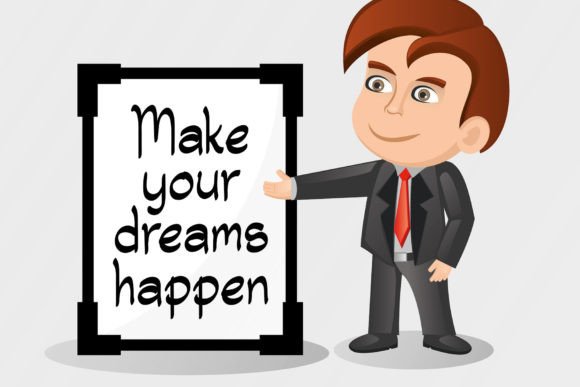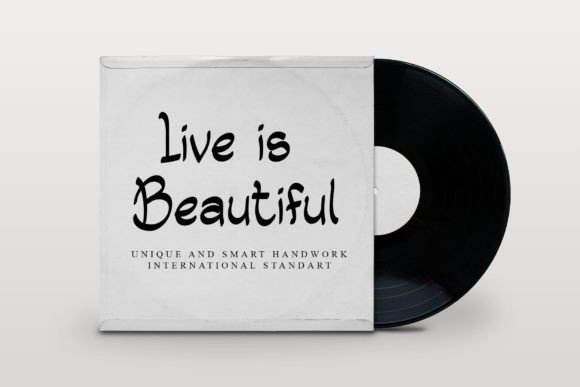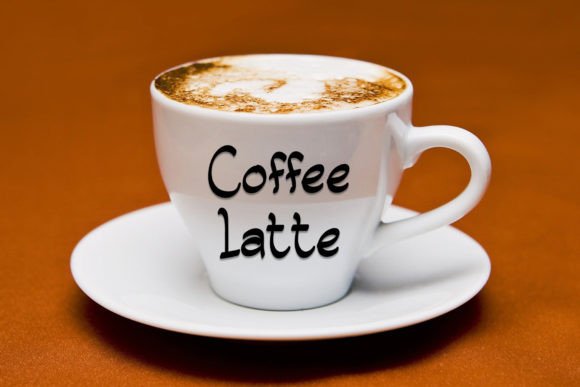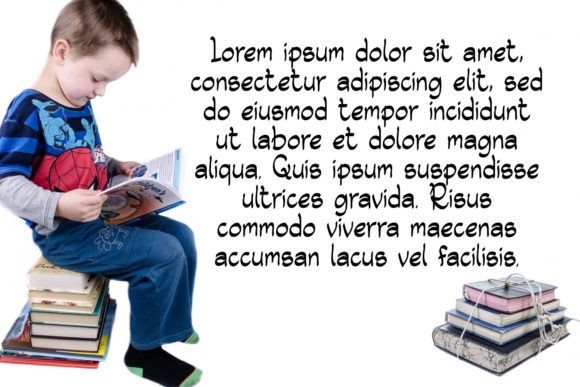
Jungle: A Handcrafted Script Font with Natural Elegance
Are you searching for a typeface that captures the beauty of handwritten text with an authentic, handcrafted flair? Meet Jungle – a stunning handcrafted script font designed to bring elegance, personality, and realism to your creative projects. Whether you’re designing for personal events or professional branding, Jungle offers a fresh and organic touch to every word.
This font was built to give your ideas a natural voice, filled with character and charm.
Elegant Handwriting with a Creative Edge
Jungle was carefully handcrafted to emulate real handwriting. The strokes are smooth yet slightly irregular, mimicking the flow of human expression. As a handcrafted script font, it offers both elegance and creativity, making it incredibly versatile for a range of design contexts.
Use Jungle for:
Wedding invitations and event stationery
Birthday party cards and celebration banners
Professional documents with a personal twist
Website headings, hero banners, and blog titles
Office presentations and creative branding
Posters, labels, billboards, and signage
Its genuine, warm feel adds life and movement to otherwise static text.
Why Jungle Stands Out from the Crowd
Fonts with personality are a must in modern design. Jungle provides a refreshing break from cold, sterile typefaces. It’s a favorite among creatives for its unique charm and polished legibility.
Here’s what makes Jungle a top choice as a handcrafted script font:
Natural flow and realistic handwriting feel
Great readability in both print and digital formats
Balanced spacing and well-formed curves
Suitable for both formal and casual settings
Complements rustic, vintage, and minimalist styles
No matter the project, Jungle helps your message feel personal and expressive.
Perfect for Events, Web Design, and Everyday Creativity
Whether you’re working on wedding materials, office branding, or personal design projects, Jungle provides a flexible solution. Its natural script style fits seamlessly into both elegant and casual environments.
Best use cases include:
Social media visuals and Instagram posts
Creative blogs and online shops
Customized merchandise and apparel
DIY printables, planners, and scrapbooking
Business logos and boutique branding
It brings warmth and authenticity to every creation.
When you want to bring a human touch to your designs, Jungle delivers. This handcrafted script font gives your words depth, emotion, and visual interest—perfect for both digital and printed works.